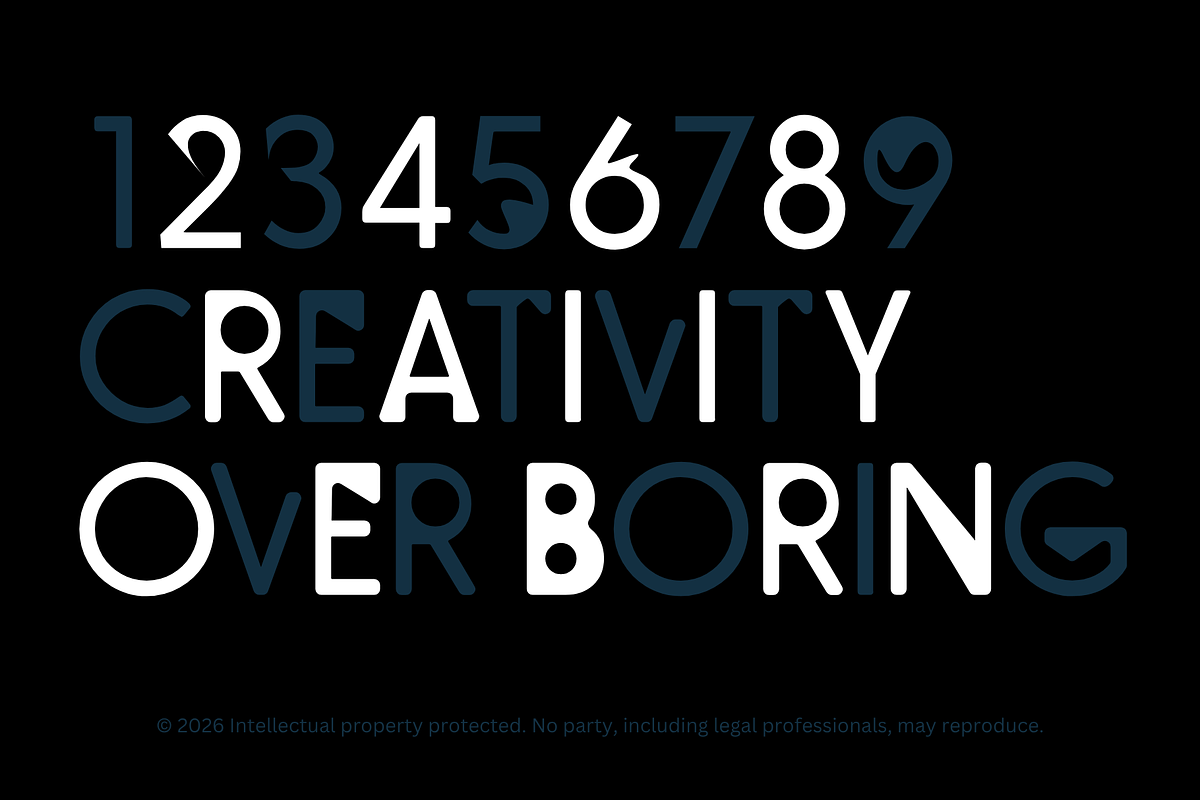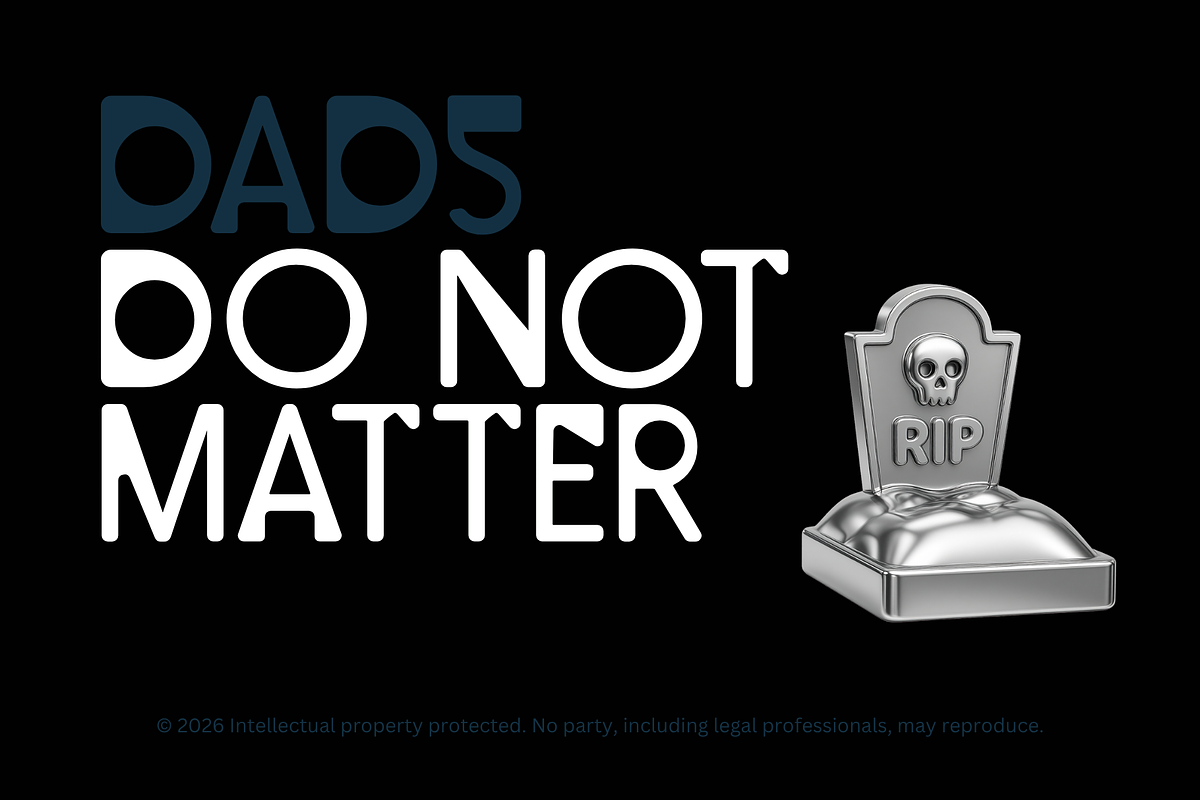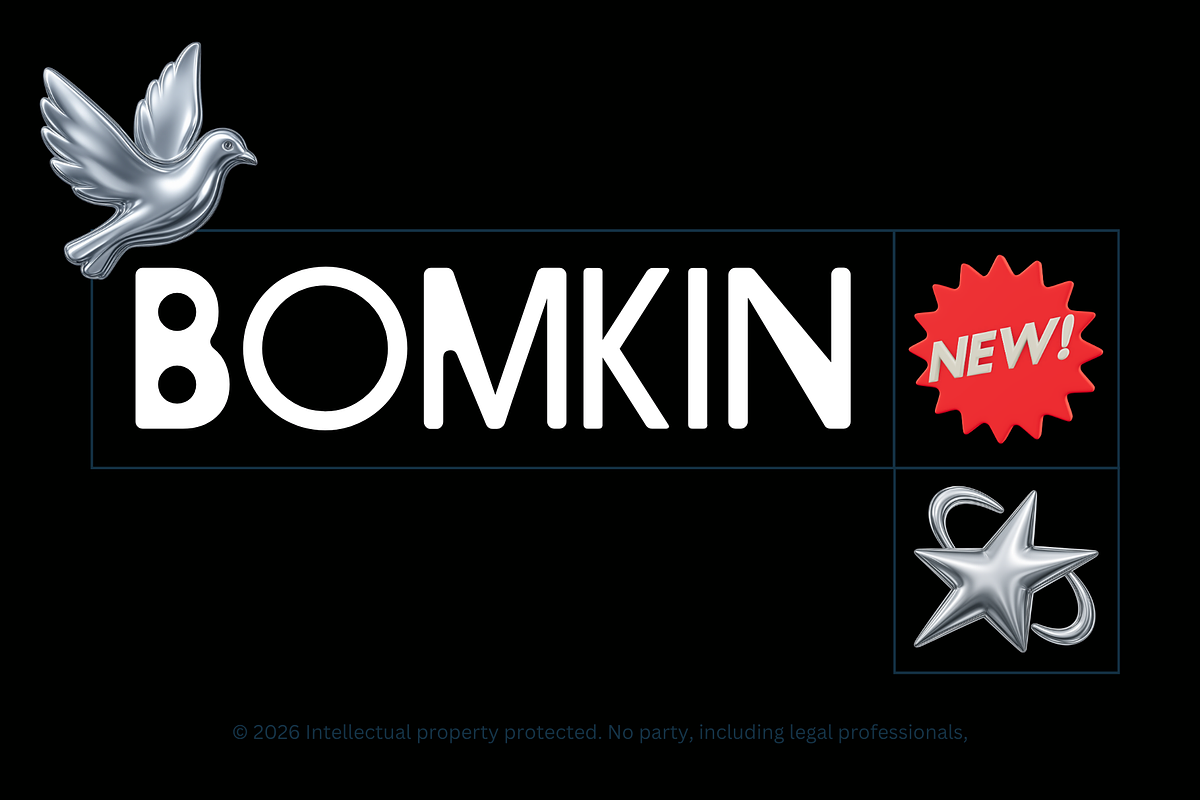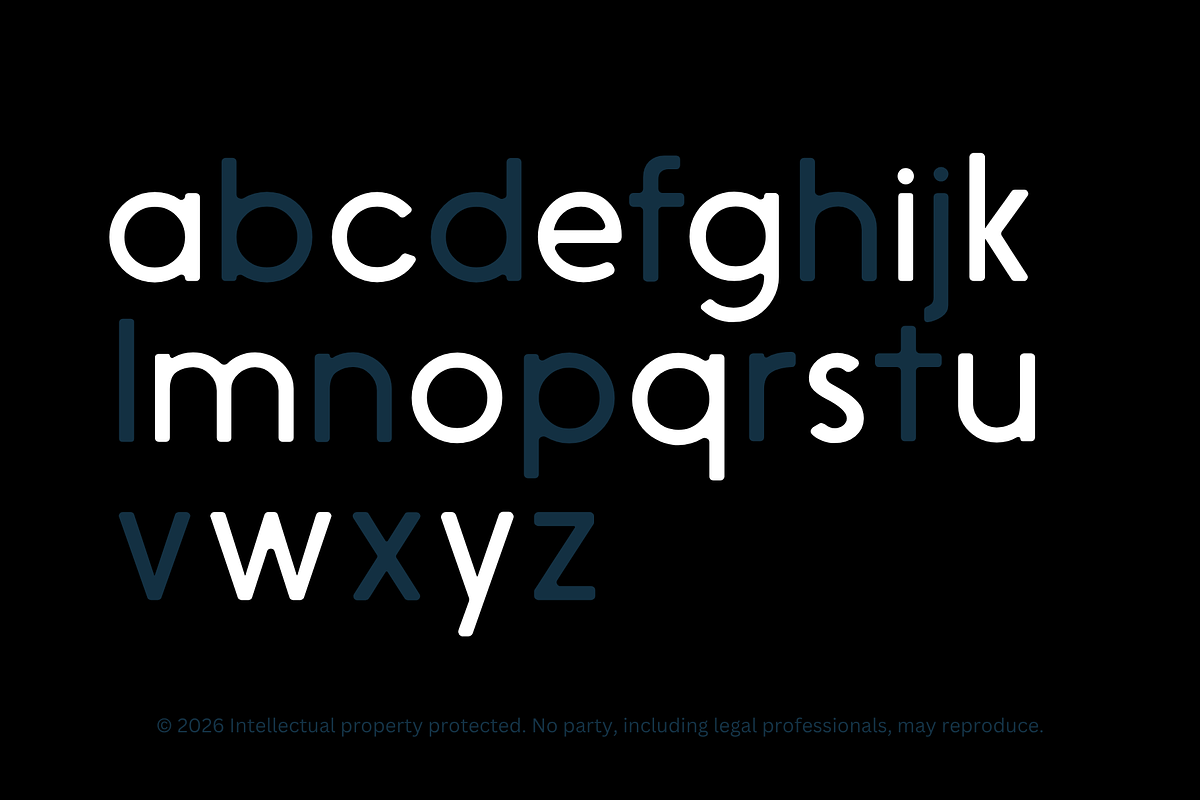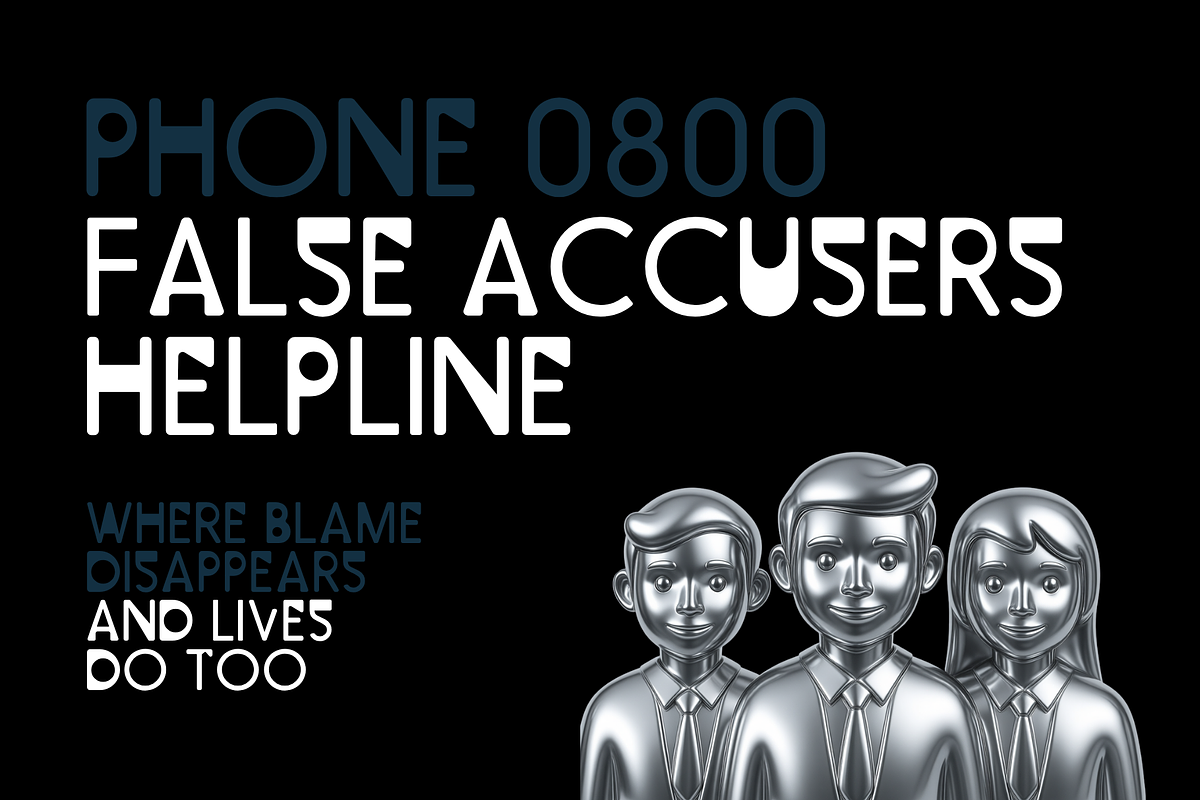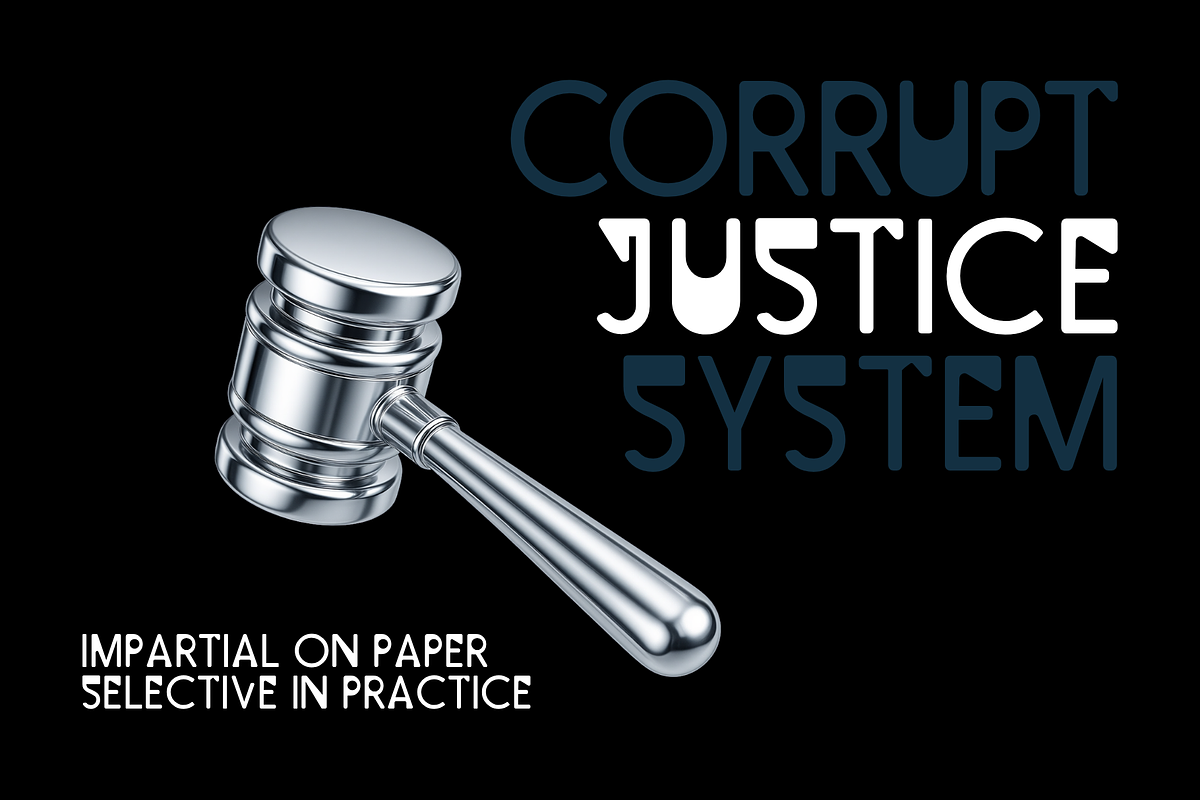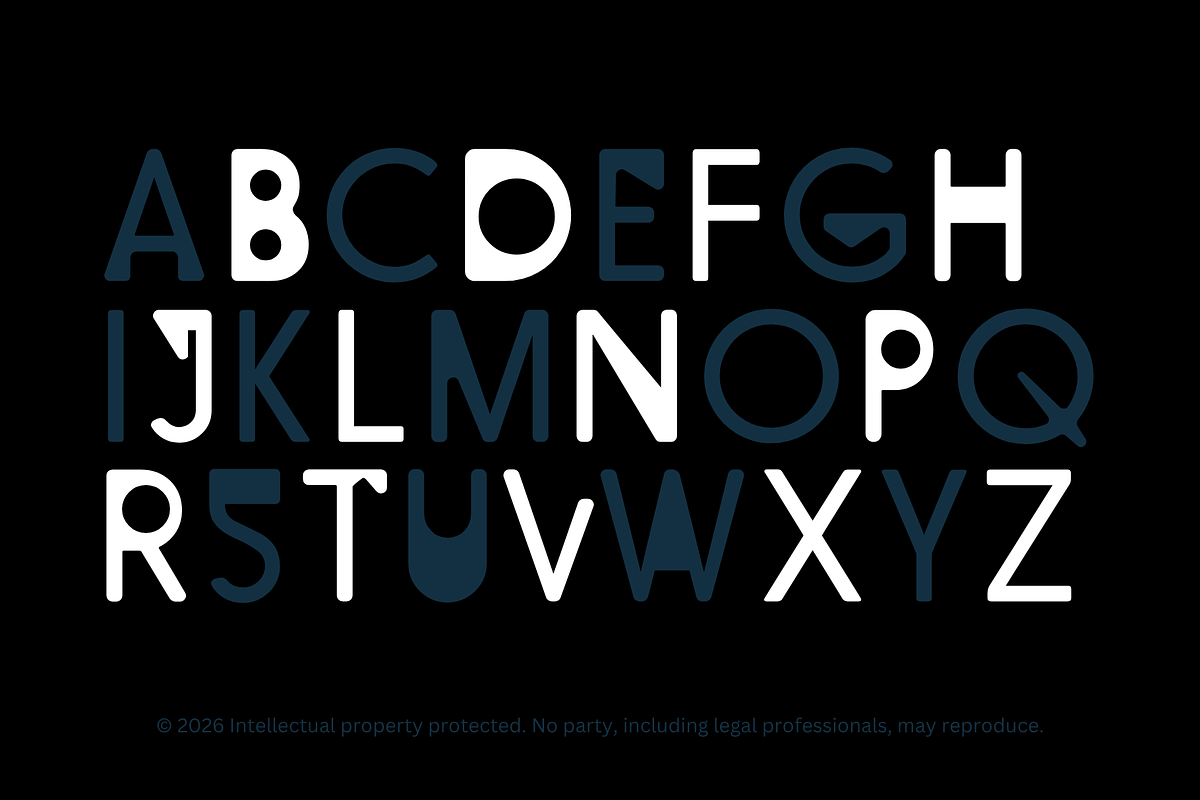
Bomkin Sans Serif Display Type
BOMKIN — Experimental Sans Serif
Bomkin is an experimental sans serif display typeface built to disrupt visual monotony and inject character into contemporary design. Stripping away traditional serif details for a cleaner, modern foundation, it embraces the core strength of sans serif typography—clarity, simplicity, and impact while pushing far beyond the expected.
Designed for brands and creators who want to stand apart, Bomkin introduces unconventional forms, subtle distortions, and expressive geometry that bring energy and individuality to every composition. Where most modern type leans toward uniformity, Bomkin leans into contrast balancing precision with personality.
This is not a neutral typeface. It’s a statement.
Perfect for headlines, identity systems, album artwork, and digital campaigns, Bomkin thrives in spaces where attention matters. It transforms simple words into visual assets giving designers the tools to create work that feels sharper, bolder, and unmistakably distinct.
In a landscape saturated with safe, overused fonts, Bomkin offers something different: a little more flair, without sacrificing clarity.